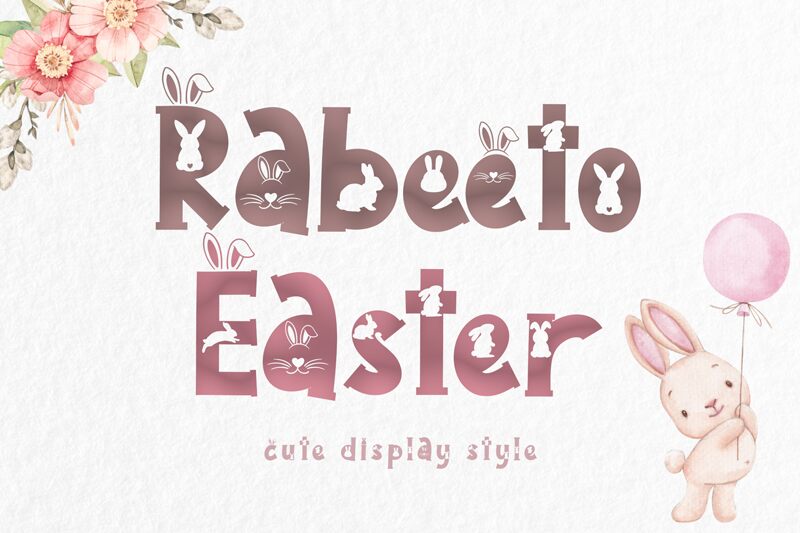
Rabeeto Easter font is a sweet holiday display typeface from Yoga Letter. This Easter-themed font features a mix of special letter design, high contrast letters, and an authentic date design twist. Included are a set of alphabet uppercase and lowercase characters in addition to punctuation symbols and numerals.
Rabeeto Easter typeface is an excellent choice for several funny and enjoyable design projects. Use it for T-shirt designs, hoodies, marketing materials, invitation cards, letters, stationery, web design, social media posts, short video captions, and more. It is suitable for both digital and printed projects.